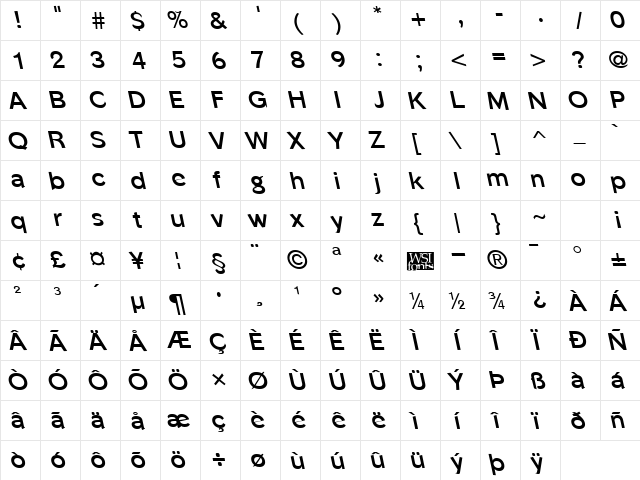
PhinsterLefty Bold Font Preview
PhinsterLefty Bold
PhinsterLefty Bold Font Details
Design Context for PhinsterLefty Typeface
PhinsterLefty takes a measured approach to typography — its balanced proportions and neutral character make it a reliable workhorse for both digital and print work. The heavy weight commands attention and anchors typographic hierarchies.